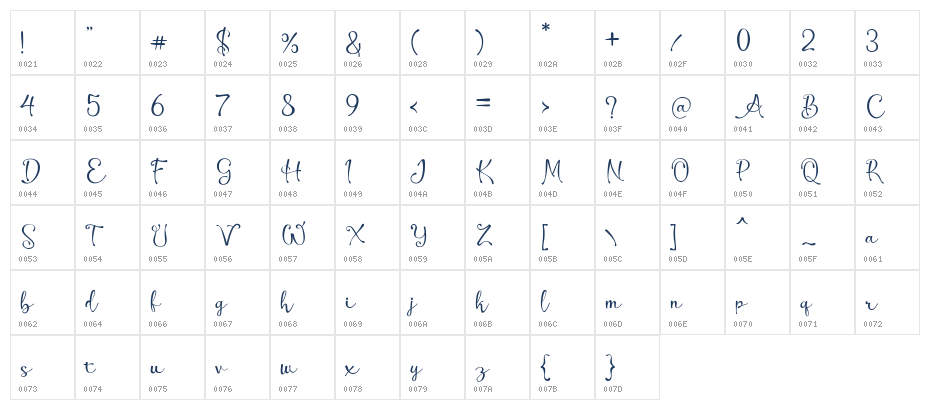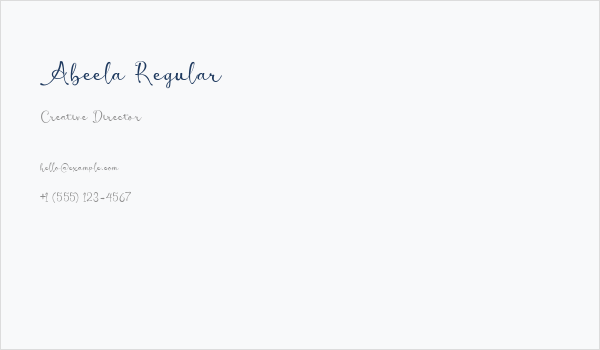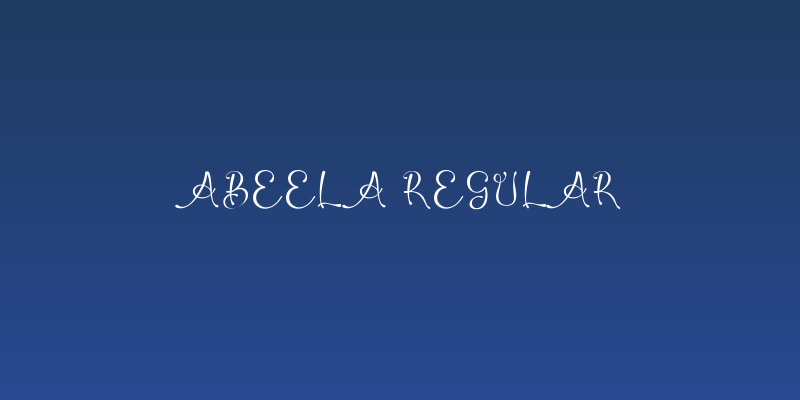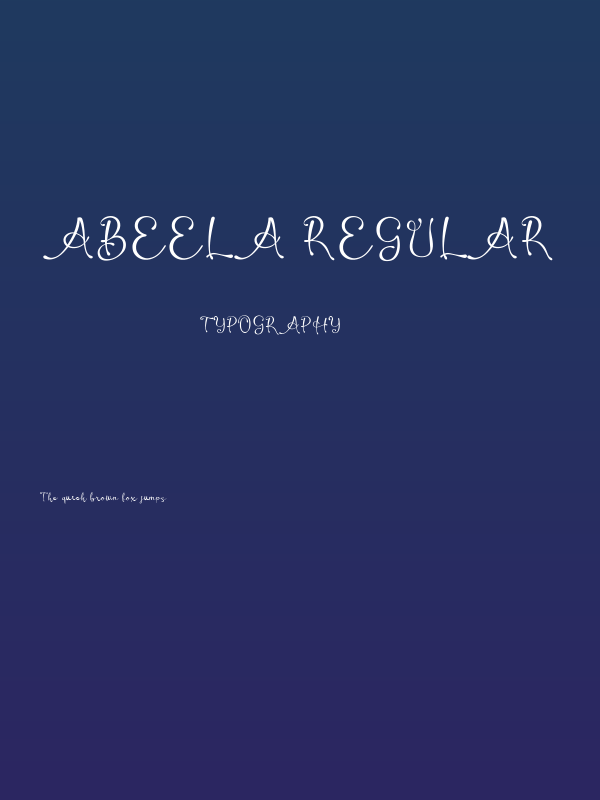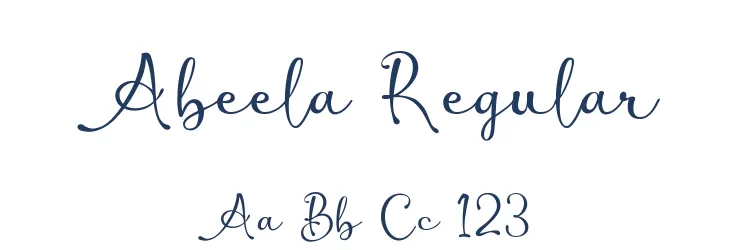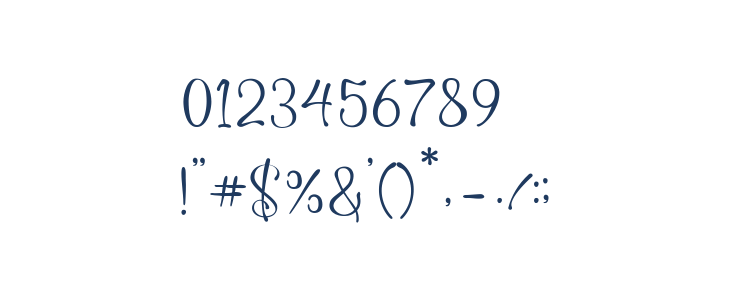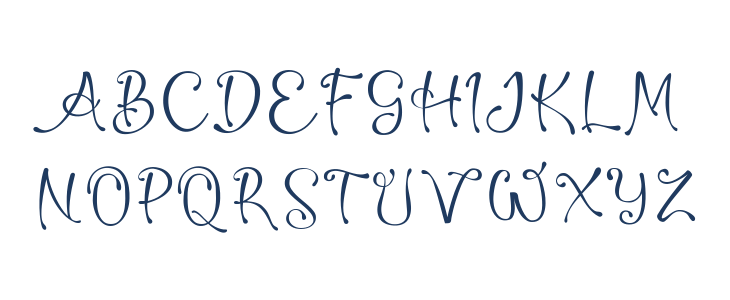
Abeela Regular Font
Abeela Regular Description
A cursive, handwritten style font with elegant, flowing letterforms and a slightly playful appearance.
| Overall Style | Elegant, Casual, Handwritten |
| Use Case | Headlines, Invitations, Personal branding, Logos |